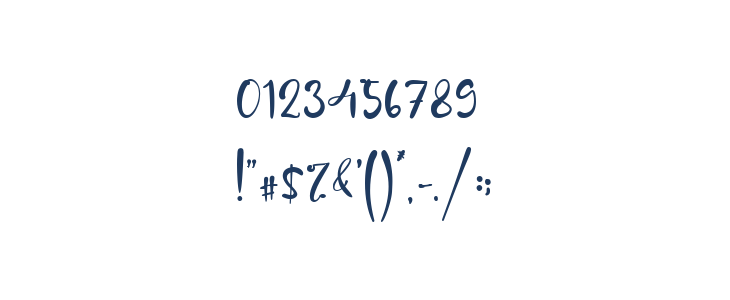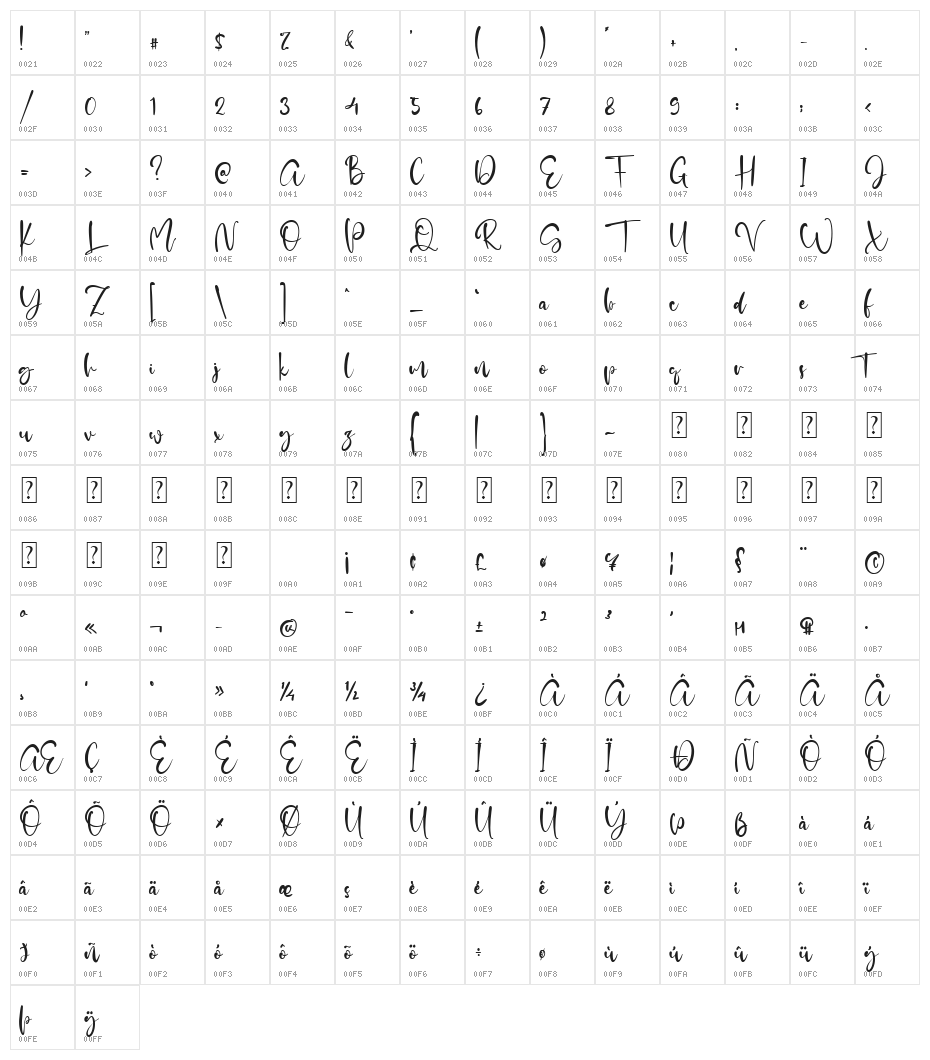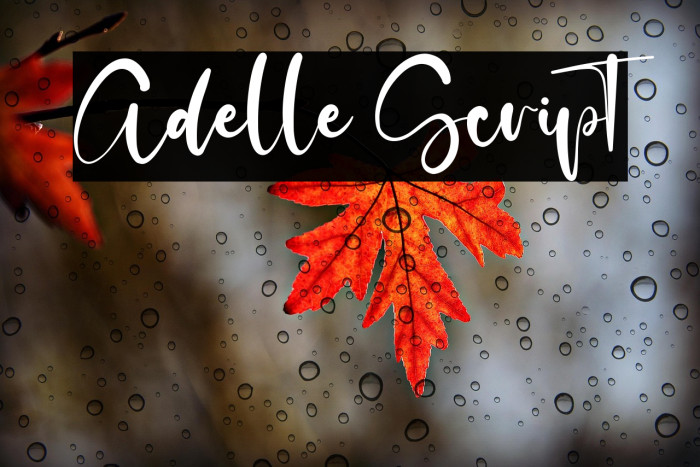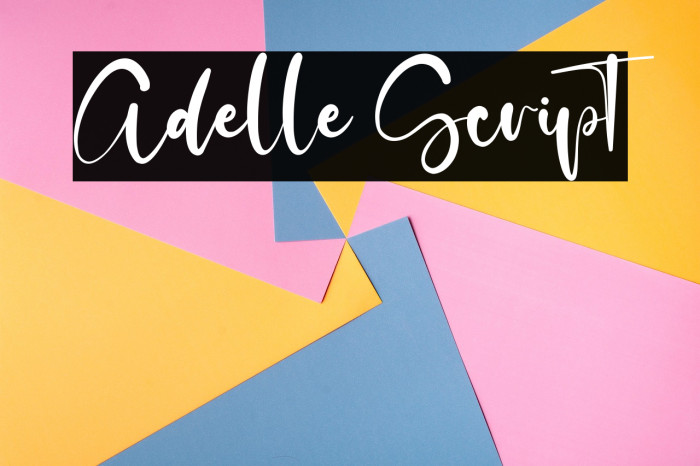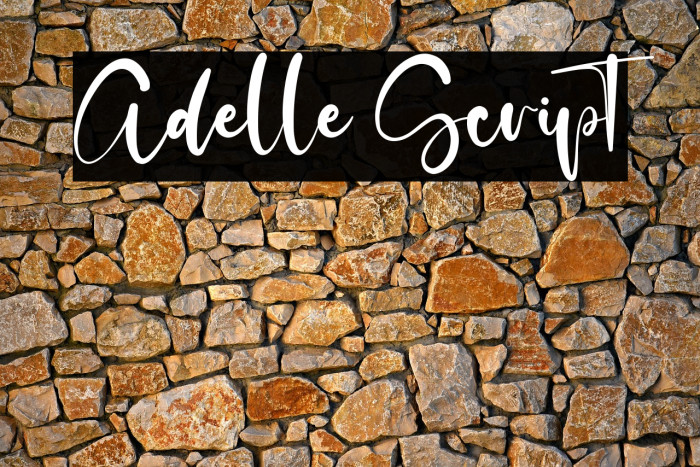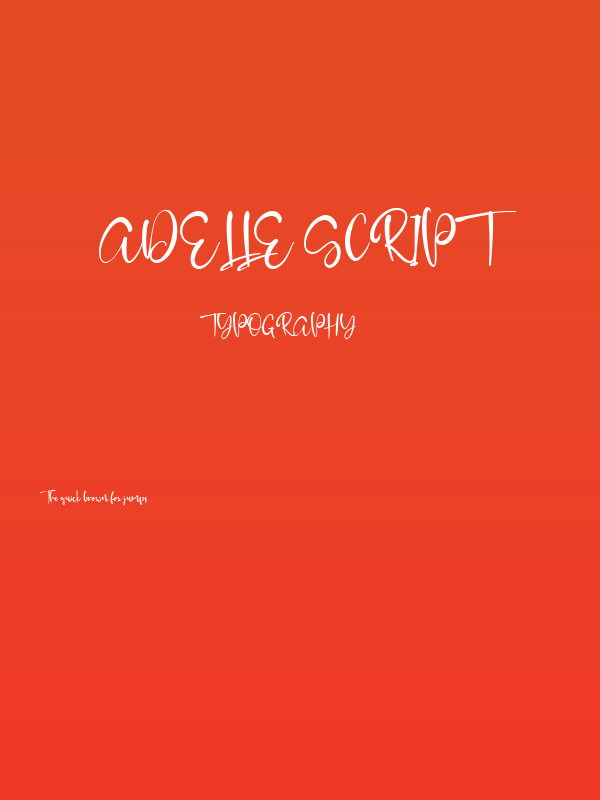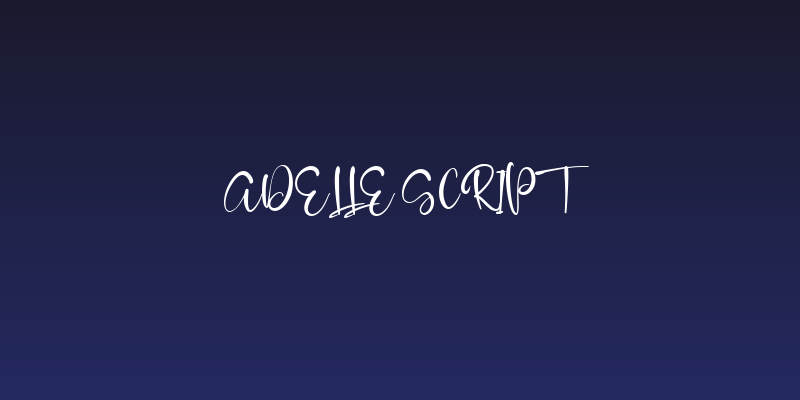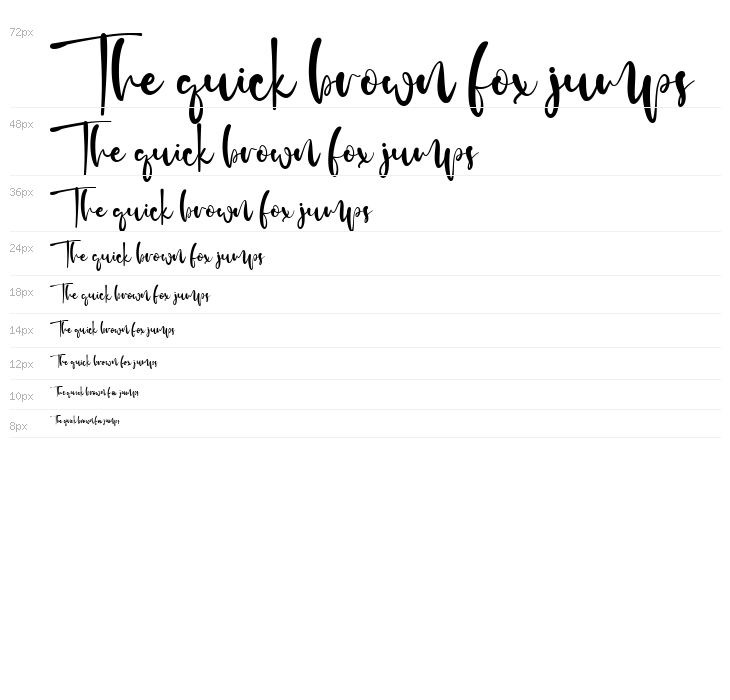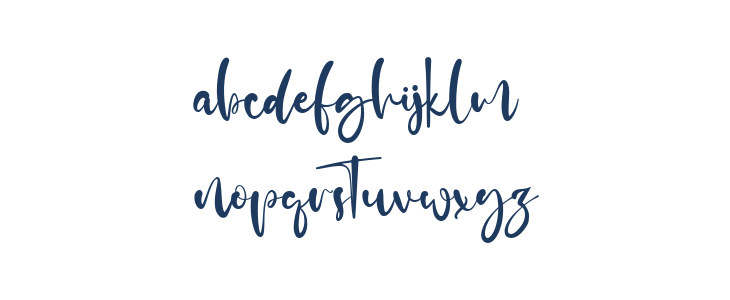
Adelle Script Font
Adelle Script Description
This font features a lively and flowing script style, characterized by its elegant and fluid strokes. The uppercase letters exhibit a playful yet sophisticated design, with varying stroke widths that add a dynamic feel. The lowercase letters maintain a cohesive look with smooth connections and a slightly informal touch. The numerals are bold and clear, ensuring readability while maintaining the overall aesthetic. Special characters are thoughtfully designed to complement the script style, making them suitable for decorative purposes. The font's overall appearance is both modern and classic, offering versatility for various design projects.
| Use Case | Logos, Headlines, Invitations |
| Proposed Projects | Ideal for wedding invitations, greeting cards, branding, and logo design. |